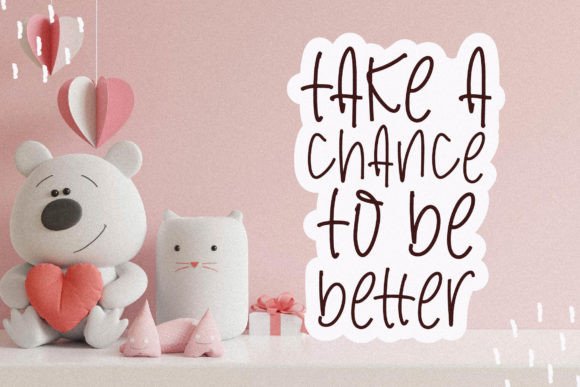
Bring Playful Charm with Small Krowstar Font
Small Krowstar Font is a fun and whimsical handwritten typeface designed to add a youthful and joyful vibe to your creative projects. Its quirky and casual style makes it ideal for a variety of crafty ideas and playful designs. Whether you’re creating kids’ crafts, greeting cards, or social media posts, Small Krowstar Font brings a lively and personal touch.
The unique letter shapes and friendly strokes give your work an authentic handmade feel that captures attention with charm.
Small Krowstar Font is versatile and fits well in many contexts, including:
Kids’ crafts and DIY projects
Greeting cards and invitations
Social media graphics and stories
Posters and flyers
Stickers and labels
Playful branding and logos
Party invitations and decorations
Its casual handwritten vibe helps your designs feel warm, inviting, and full of personality.
The font features balanced kerning and smooth letter spacing, ensuring readability and visual appeal at various sizes.
Why Creators Love Small Krowstar Font
Designers, hobbyists, and crafters appreciate Small Krowstar Font for its playful yet readable style. It adds a handmade, youthful touch that makes projects feel fun and approachable. Whether you’re a professional or a DIY enthusiast, this font helps your work stand out with creativity and warmth.
Use Small Krowstar Font to bring your next project to life with its quirky and joyful personality.